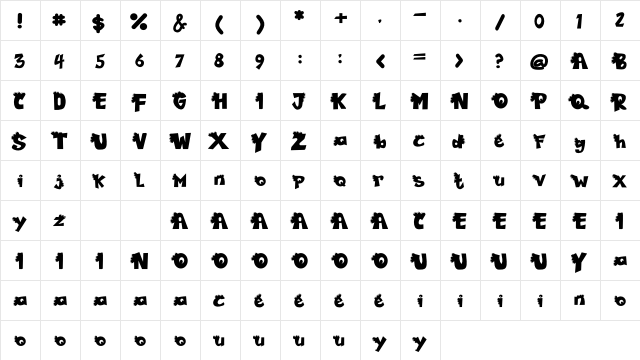
Funny Font Regular
Design Context for Funny Font Typeface
Funny Font trades formality for fun, with bouncy, characterful letterforms that bring warmth and energy to any project.
Font Pairing: Pairs well with a rounded or humanist sans for body copy, maintaining the friendly tone without relying on Funny Font to carry extended reading.
Pro Tip: Avoid using Funny Font for long passages of text — it works best for headlines, labels, and short calls to action.